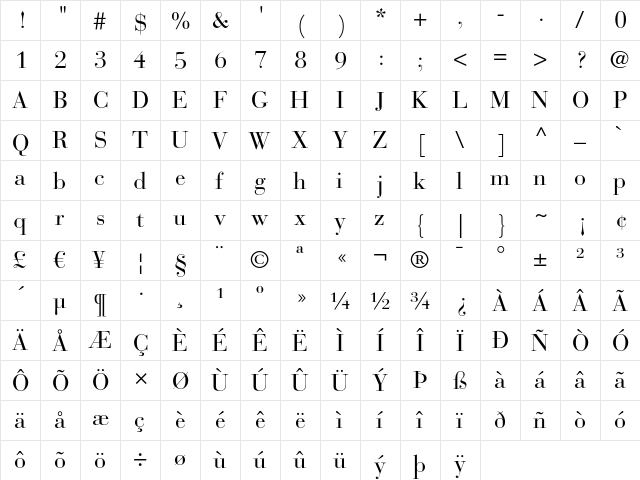
Bauer Bodoni LT Regular Font Preview
Bauer Bodoni LT Regular
Design Context for Bauer Bodoni LT Typeface
Bauer Bodoni LT takes a measured approach to typography — its balanced proportions and neutral character make it a reliable workhorse for both digital and print work. Its slender proportions lend an understated elegance to any composition.